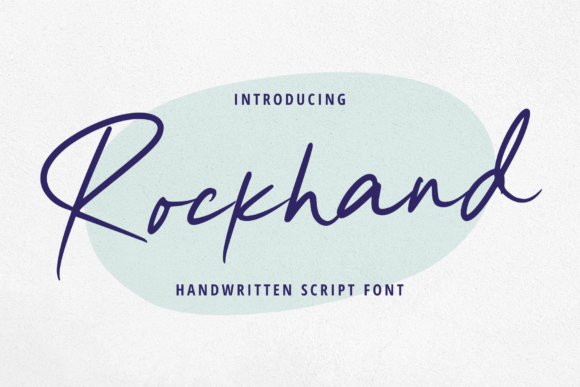
Journey into the realm of artistic expression with Rockhand Font, a script typeface that dances across the digital canvas with grace and fluidity. Its cursive strokes evoke a sense of personal connection, inviting you to add a touch of individuality to your creative projects.
Unleash your imagination and explore the boundless possibilities of Rockhand. Craft eye-catching poster ads that command attention with their distinctive lettering. Create branding designs that exude elegance and sophistication, leaving a lasting impression on your audience. Design invitation cards that transport your guests to a world of enchantment, making every occasion extra special.
With Rockhand's versatility, your creative horizons are limitless. Let your imagination soar as you experiment with various styles and applications. Whether you're crafting personalized logos, designing captivating social media graphics, or adding a touch of charm to your presentations, Rockhand will effortlessly elevate your work.
Dive into the world of typography with Rockhand, a PUA-encoded font that grants you effortless access to a treasure trove of glyphs and swashes. Unleash your creativity and explore the endless possibilities, transforming your designs into captivating masterpieces.